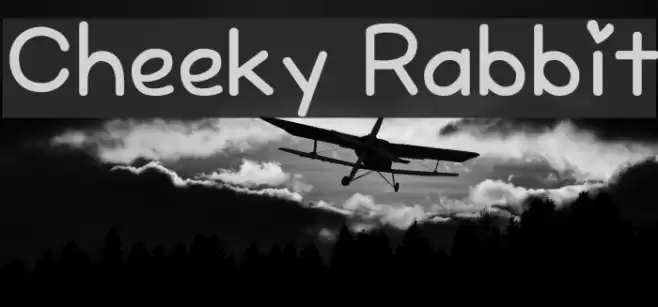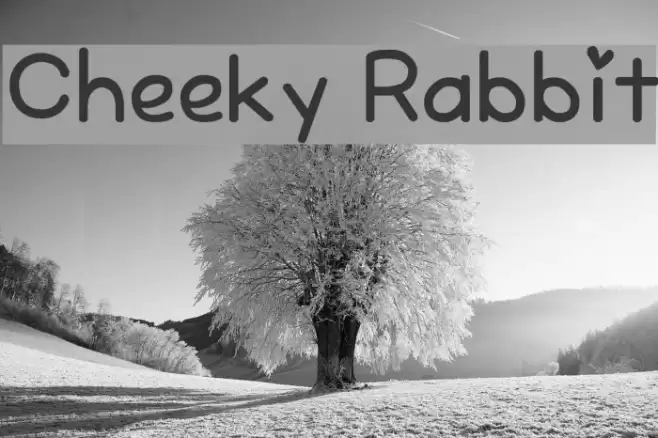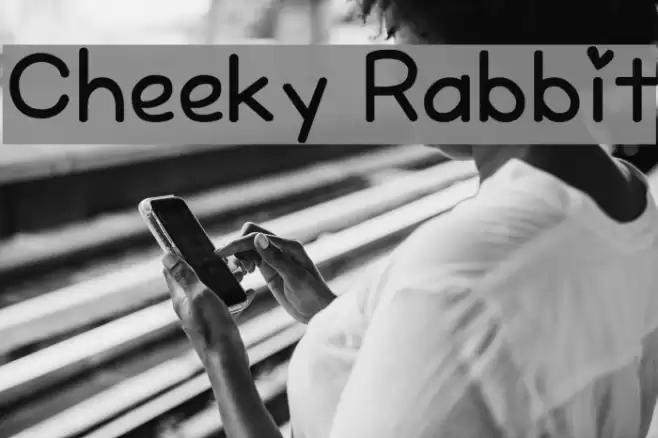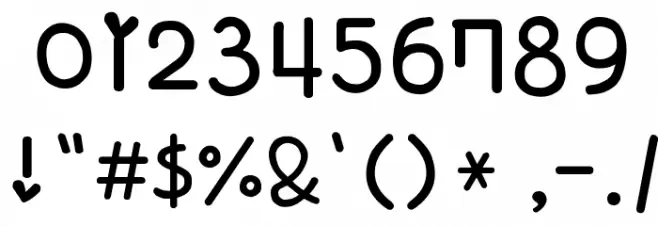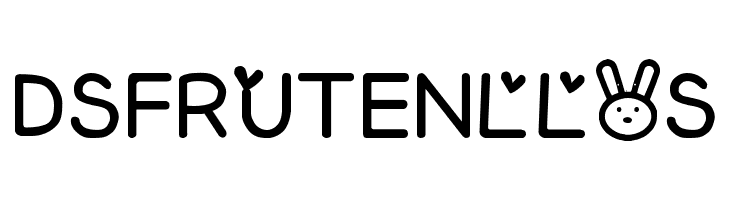
Cheeky Rabbit Font
Cheeky Rabbit Description
This playful and whimsical font features rounded, bold characters with unique embellishments. The uppercase letters include charming details, such as a bunny face within the 'O' and heart shapes on the 'K' and 'V'. The lowercase letters maintain a friendly and approachable style, with the 'n' and 'o' incorporating heart motifs. Numbers are consistent with the font's rounded aesthetic, while special characters are creatively designed to match the overall theme. This font exudes a sense of fun and creativity, making it perfect for projects that require a lighthearted and engaging touch.
A playful, rounded font with whimsical embellishments and a friendly style from Comic fonts.
- Overall Style: Playful, Whimsical